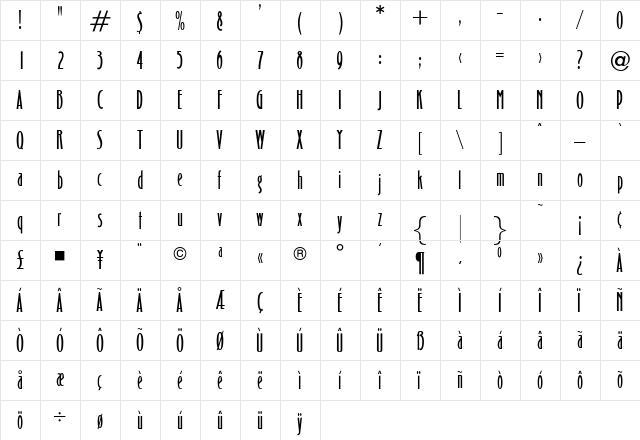
OPTICarling Regular
Design Context for OPTICarling Typeface
OPTICarling takes a measured approach to typography — its balanced proportions and neutral character make it a reliable workhorse for both digital and print work.